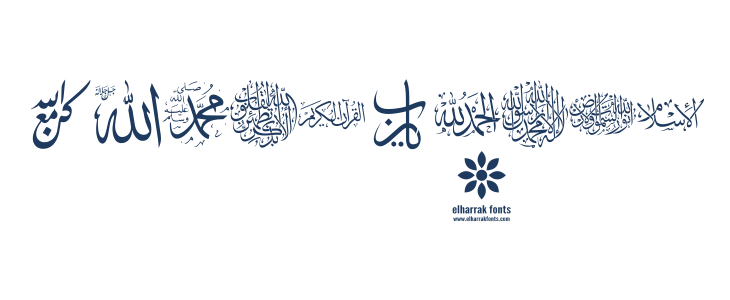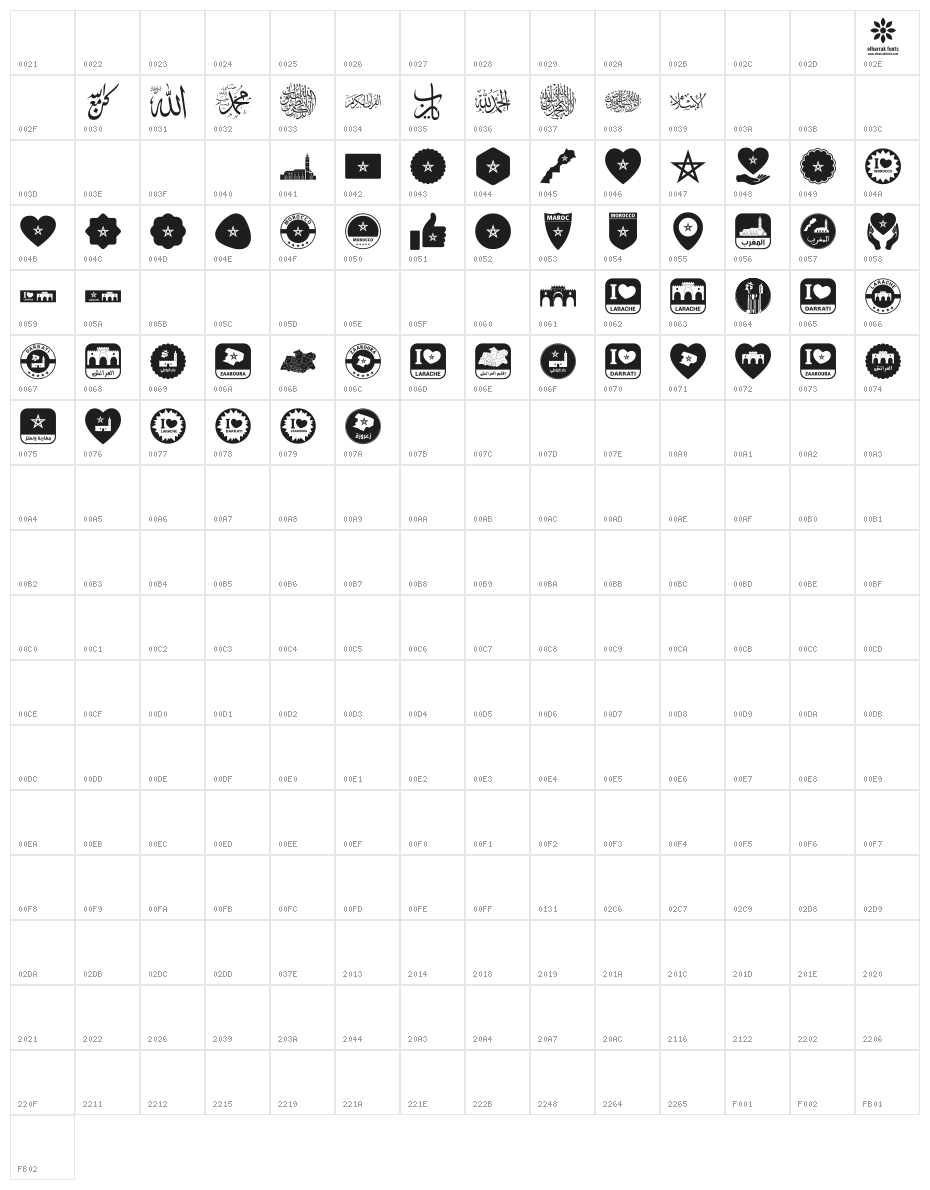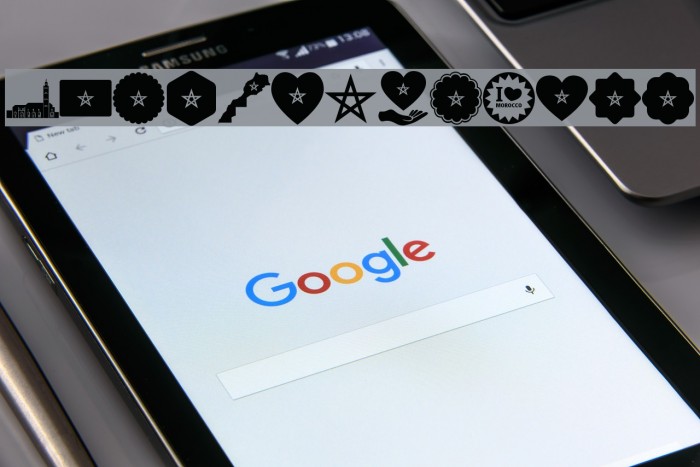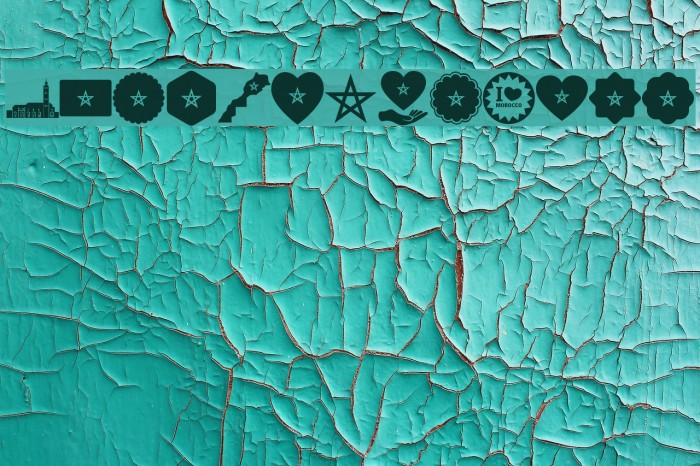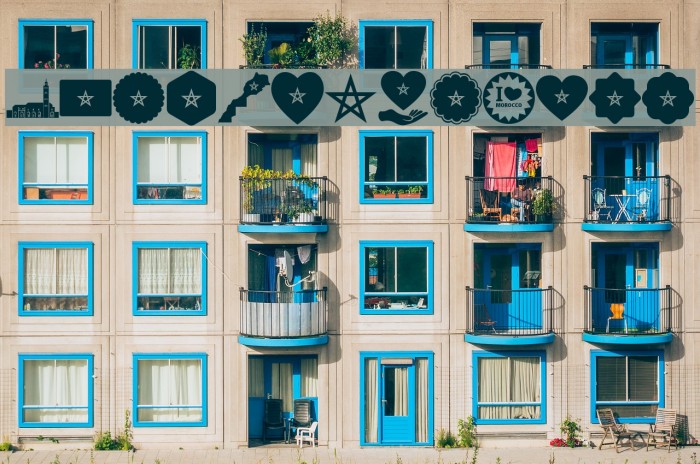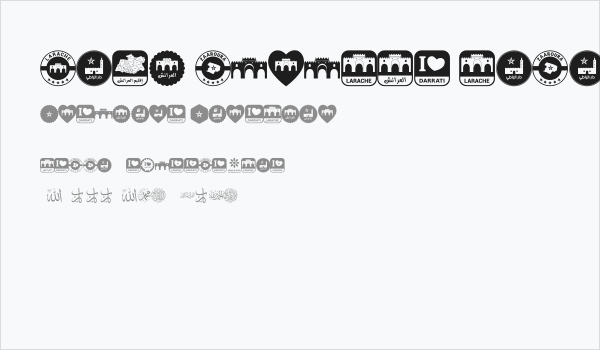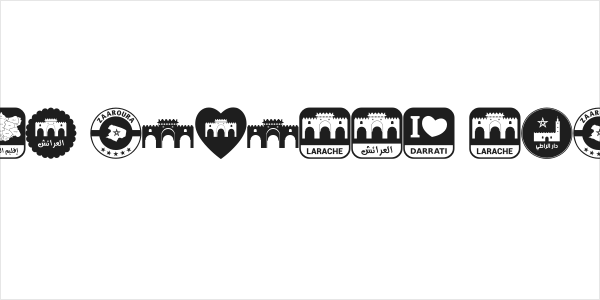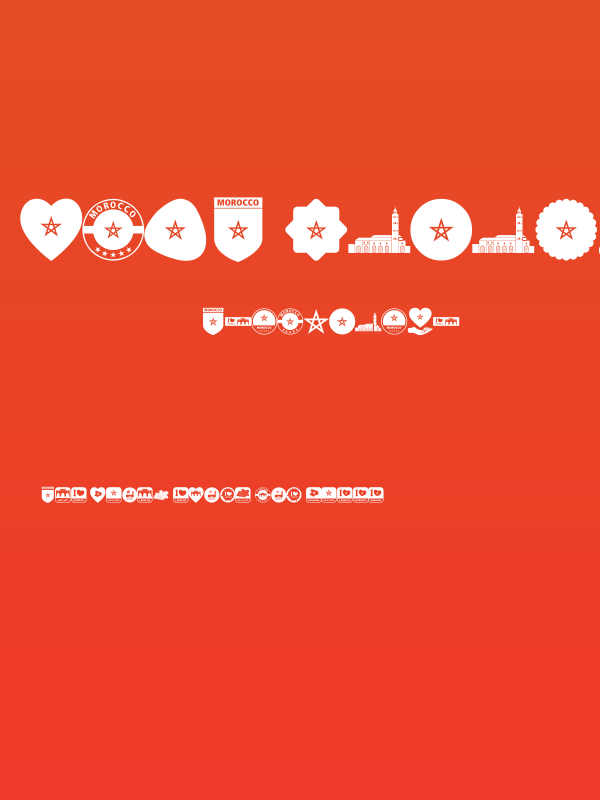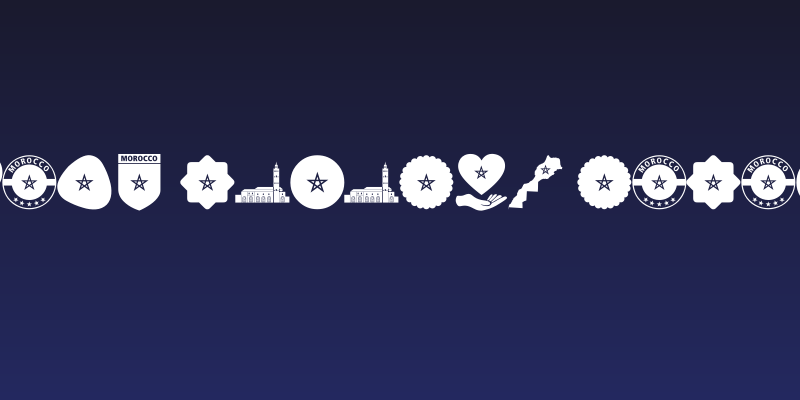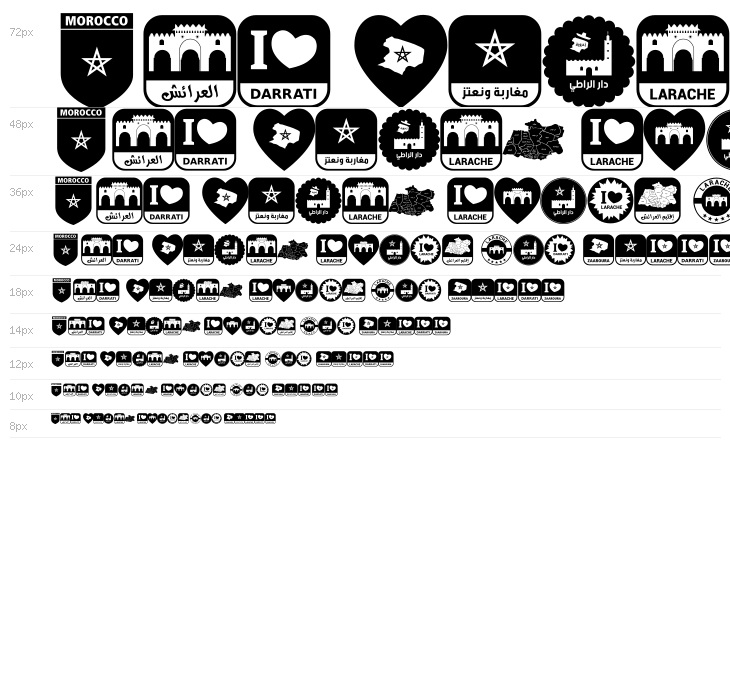
font larache color Font
font larache color Description
A decorative dingbat and symbol font featuring a variety of icons, badges, and emblems related to Moroccan culture, landmarks, and Arabic calligraphy. The glyphs include hearts, stars, shields, buildings, and intricate Arabic script, all in bold, high-contrast black shapes.
| Overall Style | Decorative, Cultural, Thematic |
| Use Case | Logos, Icons, Posters, Themed Graphics |
| Proposed Projects | Tourism branding, cultural event posters, souvenir merchandise, educational materials, themed logos. |